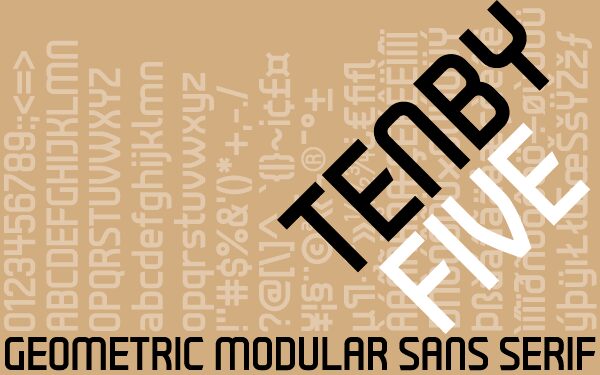
TenbyFive by Jan Schmoeger of Paragraph is a free geometric sans serif with a sturdy, engineered silhouette. Broad strokes meet rounded corners across the curved letters, and the result is orderly and slightly softened. Its compact forms and straight stroke endings add a subtle technical edge to the otherwise rounded construction.
Signage is a convincing setting for these clear, blocklike shapes, particularly in contemporary shops or transport-themed graphics. The same construction suits product packaging, posters, and digital interfaces with an industrial or urban subject. It is especially apt for designers addressing technology-minded, architecture-conscious, or streetwear audiences.